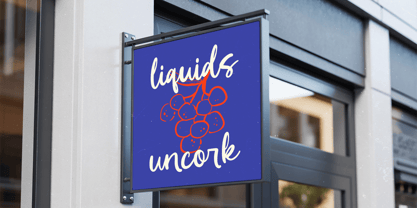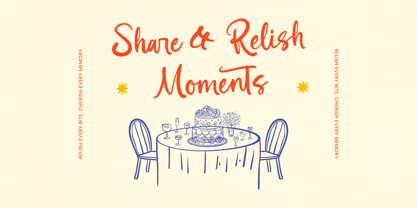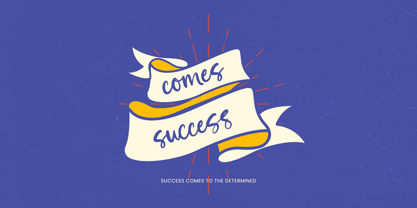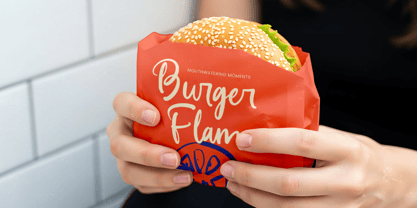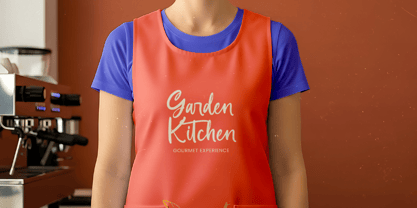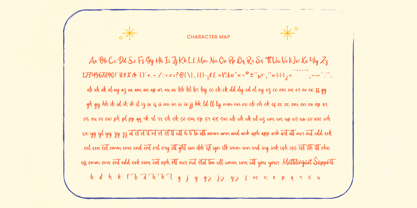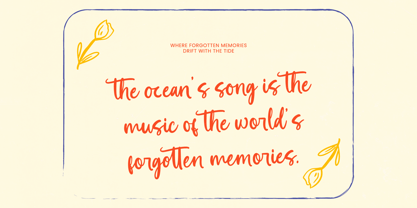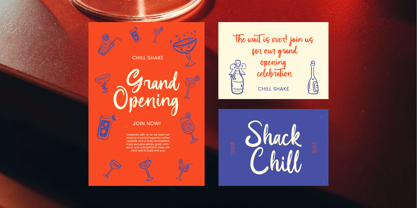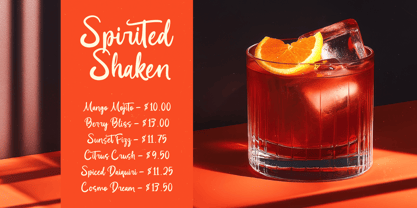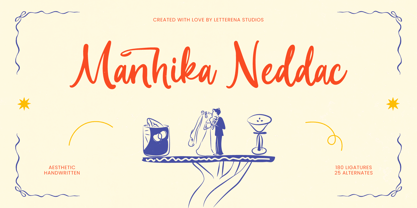
Manhika Neddac
by Letterena Studios
The Manhika Neddac Font Family was designed by Heru Utama Putra and published by Letterena Studios. Manhika Neddac contains 2 styles and family package options. More about this family
Manhika Neddac – Aesthetic Handwritten Font Manhika Neddac is an aesthetic handwritten font designed to deliver elegance, romance, and refined charm in every letter. With its smooth strokes and natural handwritten flow, this typeface feels personal yet sophisticated, making it ideal for premium branding and timeless design projects. Equipped with 180 ligatures and 25 alternates, Manhika Neddac offers extensive creative flexibility while maintaining a graceful and cohesive look. The flowing characters create a beautiful rhythm, perfect for wedding invitations, signature logos, feminine branding, and editorial layouts. This font blends modern handwritten style with a subtle vintage touch, making it versatile for both contemporary and classic design needs